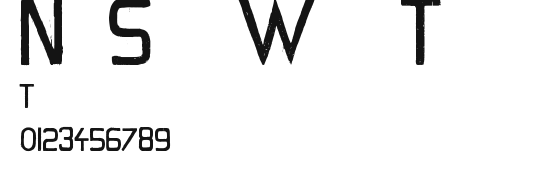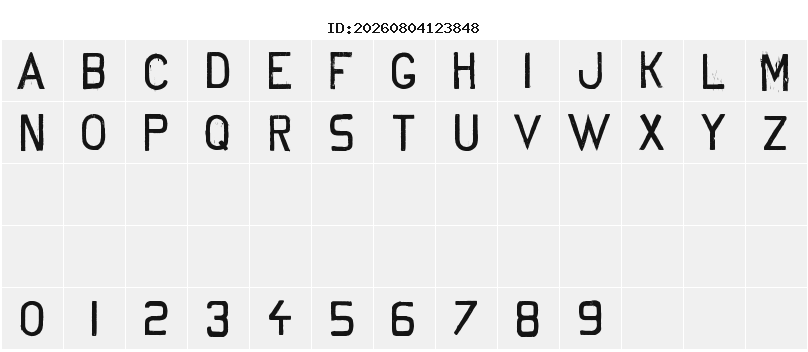
• Font Name: No Silly Walk There
• Designer: Imagex
About No Silly Walk There.ttf
No Silly Walk There.ttf is a modern, elegant sans-serif font designed for ultimate readability and visual harmony. Perfect for branding, headlines, web design, and print materials.